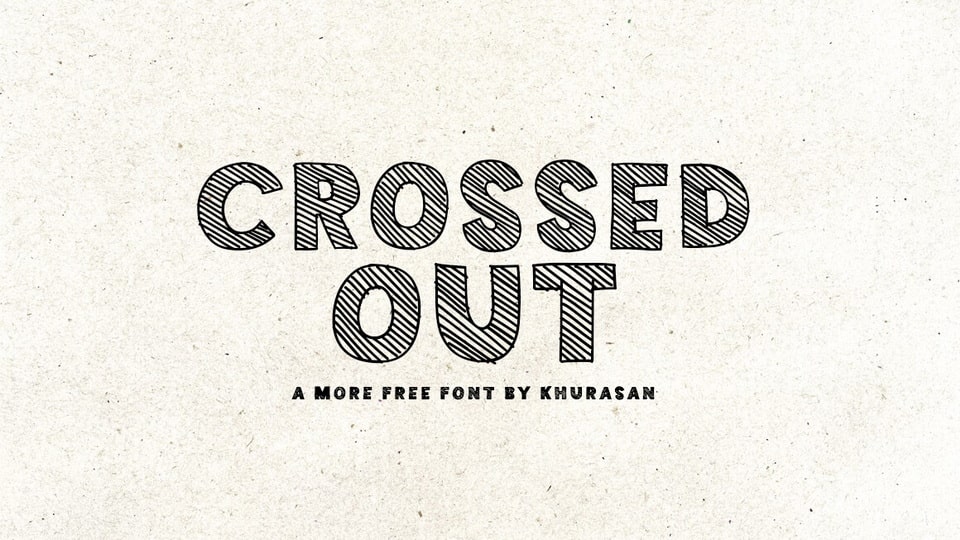
Download Crossed Out font, a hatched hand-drawn typeface that adds a captivating layer of texture and artistic intrigue to your designs. Crossed Out font features a captivating and textured design, with each letter exuding a sense of artistic depth.